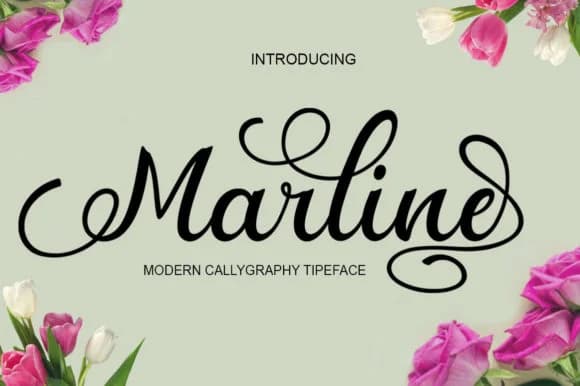
This handwritten script brings effortless elegance to projects that demand personality. Marline Font by AzzamStudio finds the sweet spot between refined and approachable, with bold swashes that add visual interest without overpowering individual letterforms. Each character strikes a natural balance that feels both warm and polished at once.
Use it for wedding invitation suites where you want guests to feel the personal touch from the moment they open the envelope. It's equally at home on small business logos and branding work, where warmth and character make all the difference in standing out from sterile corporate templates. Boutique skincare and beauty packaging gains immediate appeal with this typeface, drawing customers in with its natural, inviting rhythm. Event menus, personalized gift tags, and DIY craft signage all benefit from the handmade sensibility that Marline brings to the table.
With multiple alternates and language support included, you have flexibility to adjust the texture across different contexts and markets. When you need supporting text or body copy, pair Marline with a clean sans-serif like Open Sans or Montserrat, letting the script handle the expressive storytelling while the sans keeps things readable and grounded. Find it on Creative Fabrica, ready to add character and warmth to your work.
Marline Font is a script font that shines as a display or heading face. Pair it with a clean sans-serif or serif font for body text β the contrast creates a clear hierarchy while the two styles stay balanced and easy to read.
Marline Font